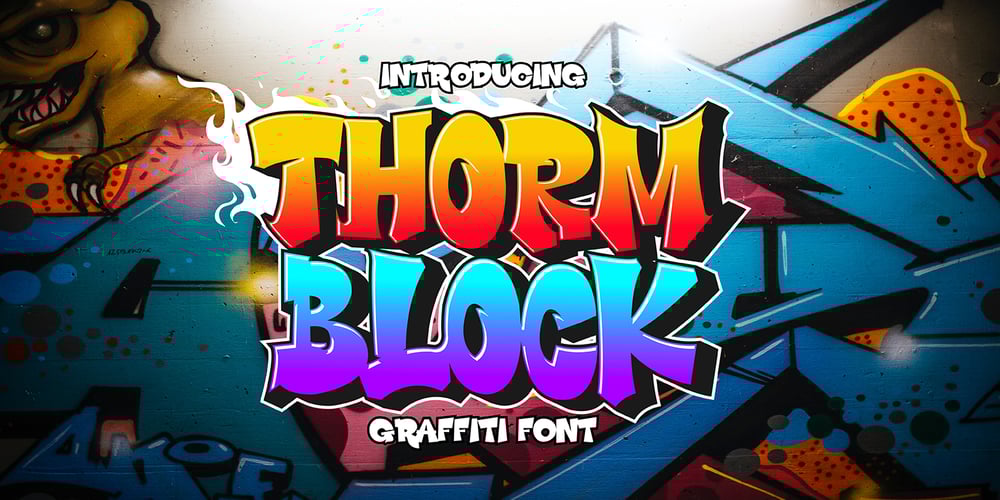
Thorm Block Graffiti Font Family was designed by Sipanji and published by Sipanji21. Thorm Block Graffiti contains 1 styles and family package options. Thorm Black is a spectacular Display font with a Fatty and Cools graffiti style for your design look awesome. It will elevate a wide range of design projects to the highest level, be it branding, headings, designs, invitations, signatures, logotype, Streetwear, wall art illustration, apparel, labels, and much more!